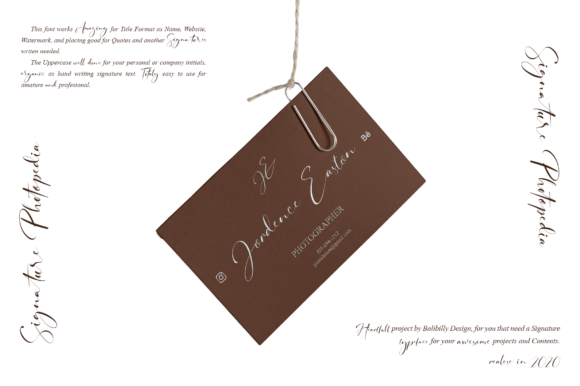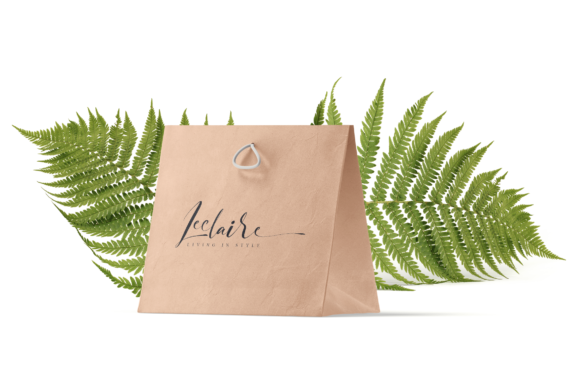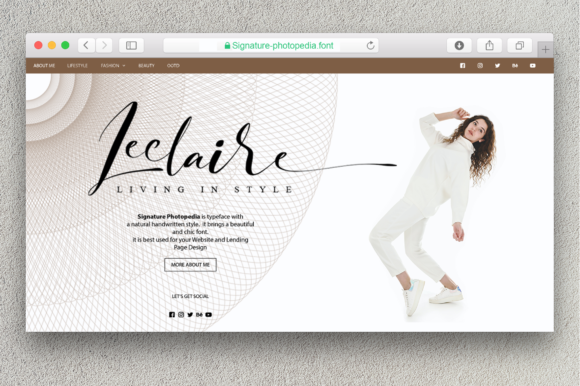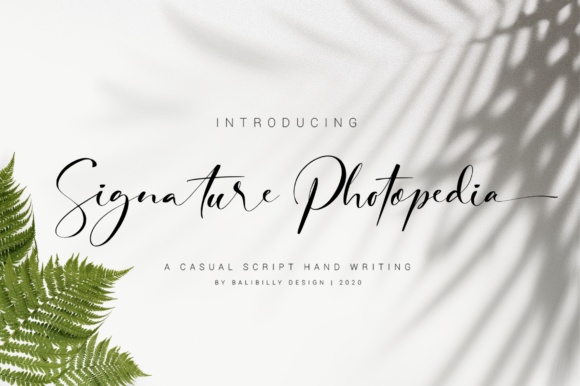
Introduction to Signature Photopedia Font
Signature Photopedia feels equally charming and elegant.
This stunning script font is a stylish homage to classic calligraphy It features a varying baseline, smooth lines, gorgeous glyphs and stunning alternates.